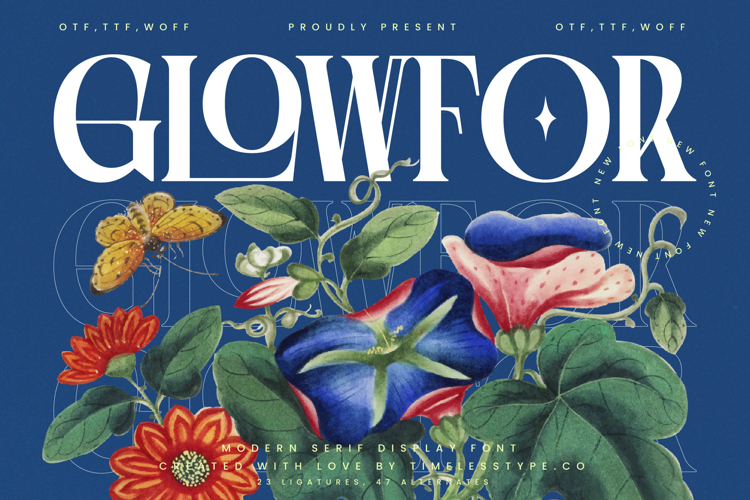
Glowfor - Modern Serif Display Font
The Glowfor Typeface is a modern serif display font with an elegant, sharp style and strong artistic character. Featuring 23 ligatures and 47 stylistic alternates, this typeface is designed to create typography that feels unique, flexible, and refined. Its tall letterforms, bold contrasts, and decorative accents bring a modern-classic atmosphere, making it perfect for luxurious, editorial, and artistic design projects.
This font is highly effective in editorial design, especially for fashion magazines, art book covers, exclusive articles, and contemporary zines. The wide range of ligatures and alternates offers creative freedom to craft expressive and dynamic layouts.
In branding and packaging, Glowfor is an ideal choice for cosmetics, perfumes, fine wines, jewelry, premium fashion, and exclusive lifestyle brands. Its aesthetic delivers a timeless, refined, and iconic visual identity.
For entertainment and promotional design, Glowfor works beautifully on movie posters, music album covers, art festival branding, and cultural event promotions. Its elegant and artistic character enhances visual storytelling with a dramatic appeal.
Within the world of digital design, Glowfor excels in social media content, website branding, digital advertising, and motion graphics. With multilingual support, it ensures consistent and versatile use across global projects.
In short, Glowfor Typeface embodies luxury, editorial aesthetics, and creative flexibility. Perfect for editorial, branding, packaging, entertainment, advertising, and digital campaigns, this font elevates typography into a stylish, elegant, and artistic visual icon.